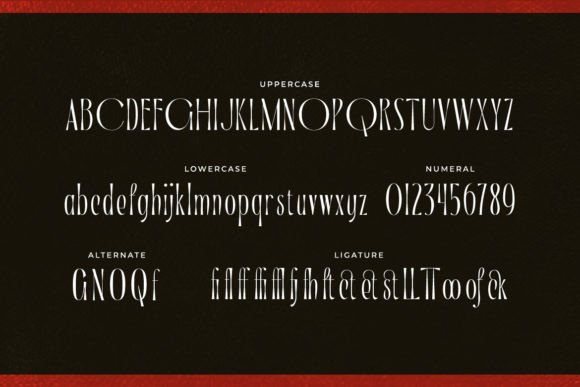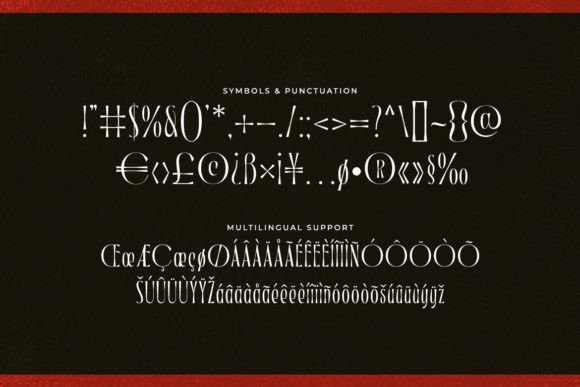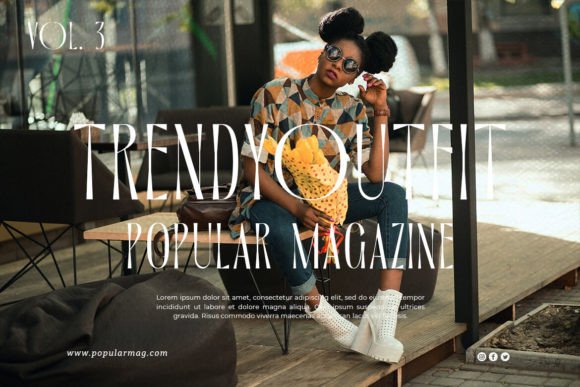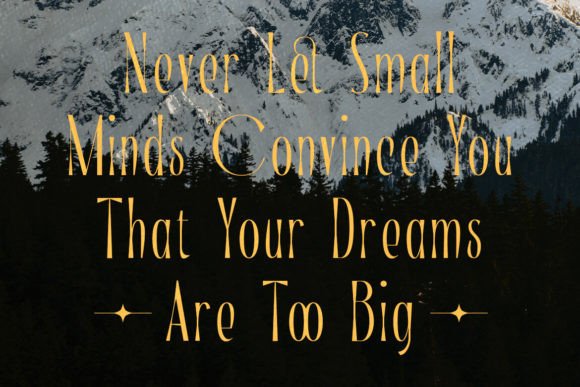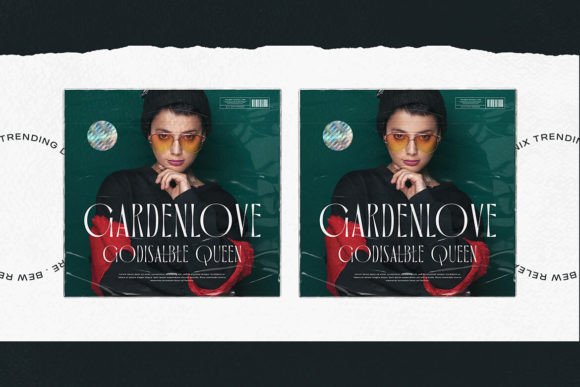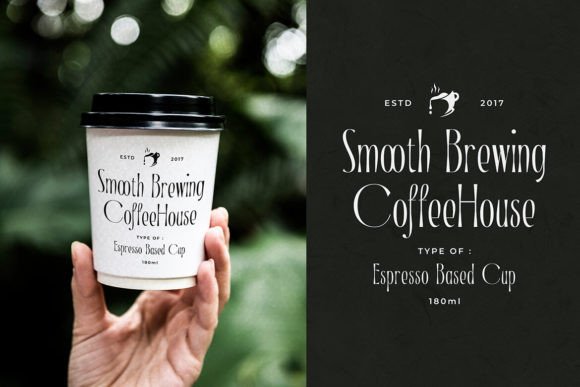
Introducing Garlone Font: Elevate Your Designs with Modern Minimalism and Elegance
In the world of typography, finding the perfect font that combines style, versatility, and readability can be a daunting task. However, for designers and crafters looking to add a touch of modern minimalism and distinctive elegance to their projects, look no further than the Garlone Font. This unique slim sans typeface is designed to offer a sleek and versatile typographic solution that can elevate any design.
The Essence of Garlone Font
Garlone Font stands out with its slender letterforms and refined proportions, embodying contemporary flair and understated sophistication. Its design is centered around providing a clean and elegant look that can seamlessly integrate into various design projects. Whether you’re working on branding materials, editorial layouts, web graphics, or product packaging, Garlone Font adds a unique style that enhances the visual appeal of your work.
Key Features of Garlone Font
- Unique Slim Silhouette: The defining characteristic of Garlone Font is its slim and sleek design. This feature allows it to bring a fresh and modern look to any project, making it stand out in a crowded design landscape.
- Clean Lines and Refined Proportions: The font’s clean lines and carefully considered proportions ensure that it delivers a high level of readability. This makes Garlone Font not only stylish but also functional, suitable for both digital and print applications.
- Versatility: One of the key benefits of Garlone Font is its versatility. It can be used across a wide range of design projects, from elegant editorial spreads to impactful branding and packaging. Its adaptability makes it an excellent choice for designers looking for a font that can keep up with their creative demands.
- Modern Minimalism and Elegance: Garlone Font strikes the perfect balance between modern minimalism and elegance. Its design is simple yet impactful, making it ideal for designers who want to convey a sense of sophistication and style.
Applications of Garlone Font
The applications of Garlone Font are vast and varied. Here are a few examples of how this versatile typeface can be used:
- Branding and Logo Design: The sleek and modern design of Garlone Font makes it an excellent choice for branding and logo design. It can help create a strong and memorable visual identity for businesses.
- Editorial Design: For editorial projects such as magazines, newspapers, and blogs, Garlone Font offers a sophisticated and clean look that enhances the reading experience.
- Web Design: In the digital realm, Garlone Font can add a touch of elegance and modernity to websites and digital applications, ensuring that your online presence stands out.
- Packaging Design: For product packaging, Garlone Font provides a stylish and contemporary look that can help products stand out on store shelves.
Why Choose Garlone Font?
Choosing Garlone Font for your design projects comes with numerous benefits. Not only does it offer a unique and stylish aesthetic, but it also provides:
- Enhanced Readability: Despite its slim design, Garlone Font maintains high readability, ensuring that your message is conveyed clearly and effectively.
- Professionalism: The elegant and modern look of Garlone Font can add a level of professionalism to your designs, making them more impactful and engaging.
- Flexibility: With its versatile design, Garlone Font can be used in a multitude of contexts, making it a valuable addition to any designer’s toolkit.
In conclusion, Garlone Font is a versatile and stylish typeface that combines modern minimalism with distinctive elegance. Its unique slim sans design, clean lines, and refined proportions make it an excellent choice for a wide range of design projects. Whether you’re a designer looking to elevate your branding materials, editorial layouts, web graphics, or product packaging, Garlone Font offers a sleek and sophisticated solution. Step into the realm of modern typography with Garlone Font and discover how it can enhance your designs with its unique slim sans style.
Embrace the sleekness and elegance of Garlone Font in your next design project and experience the difference that high-quality typography can make.